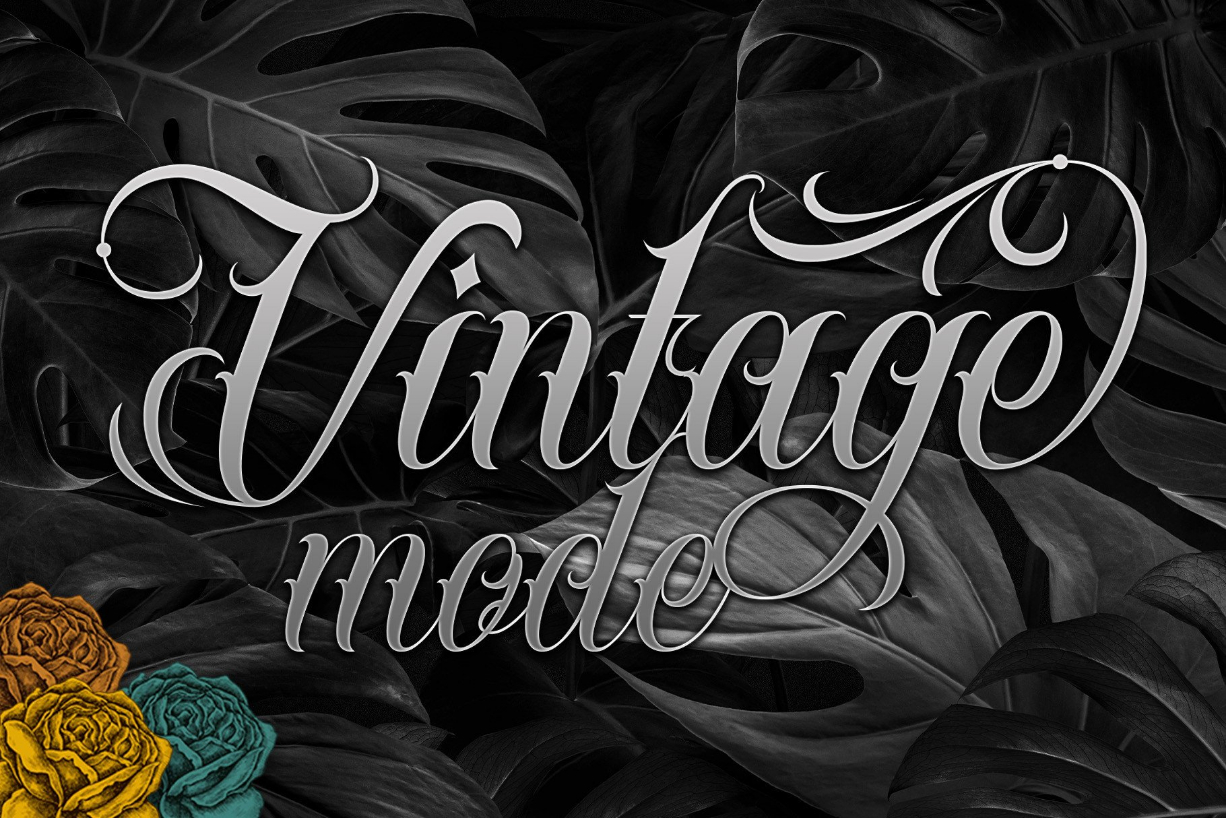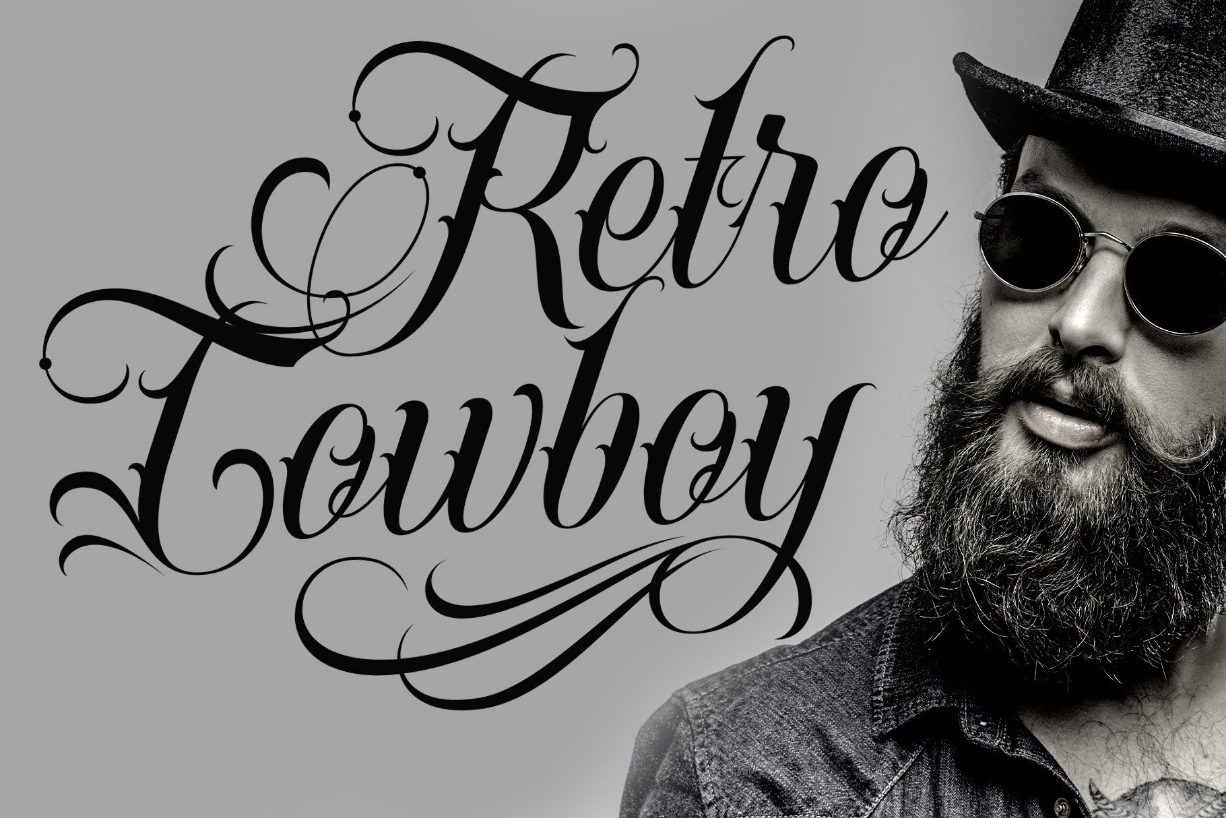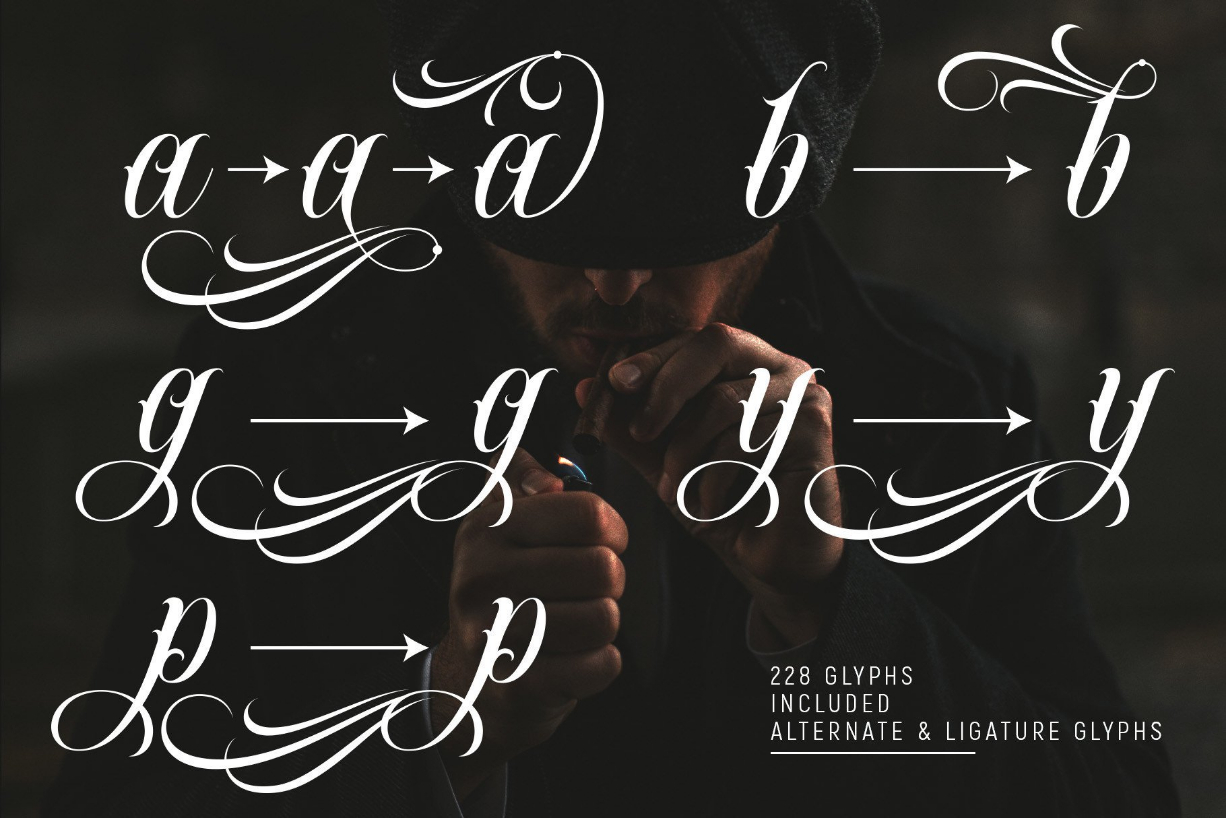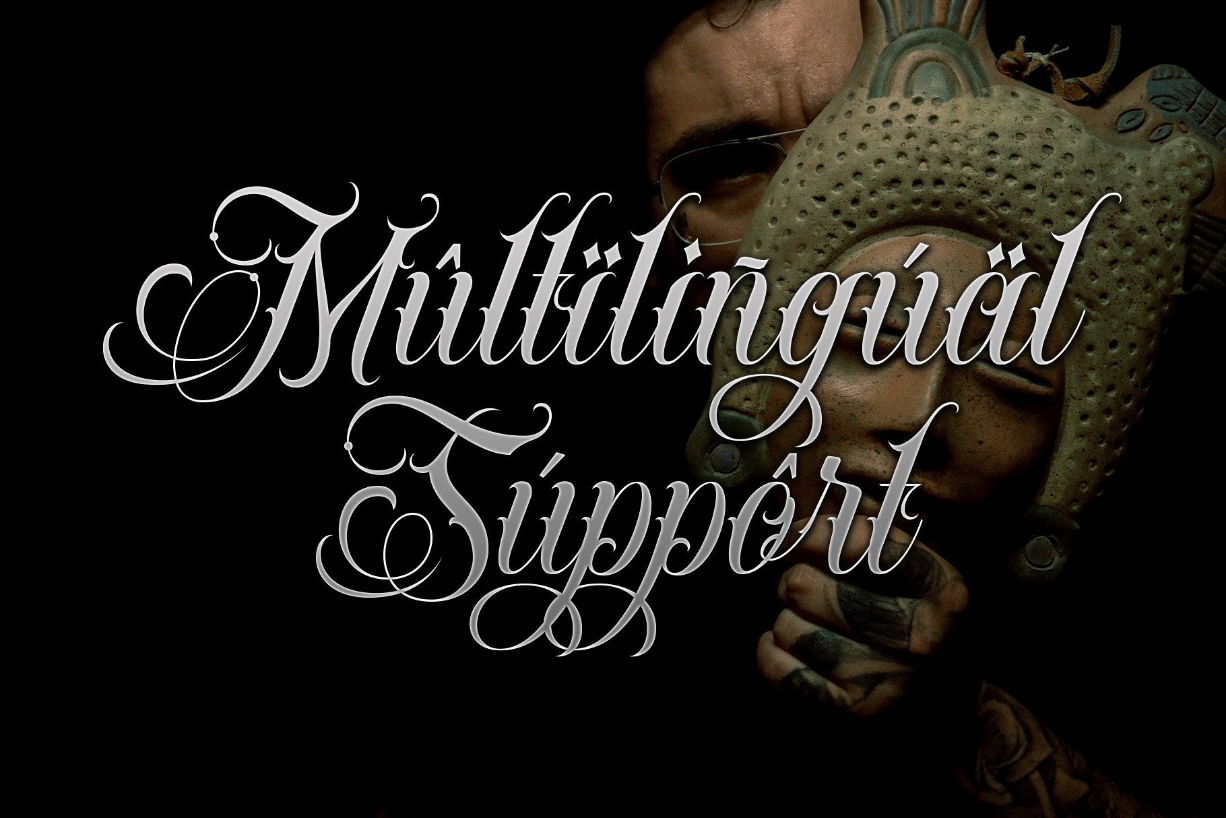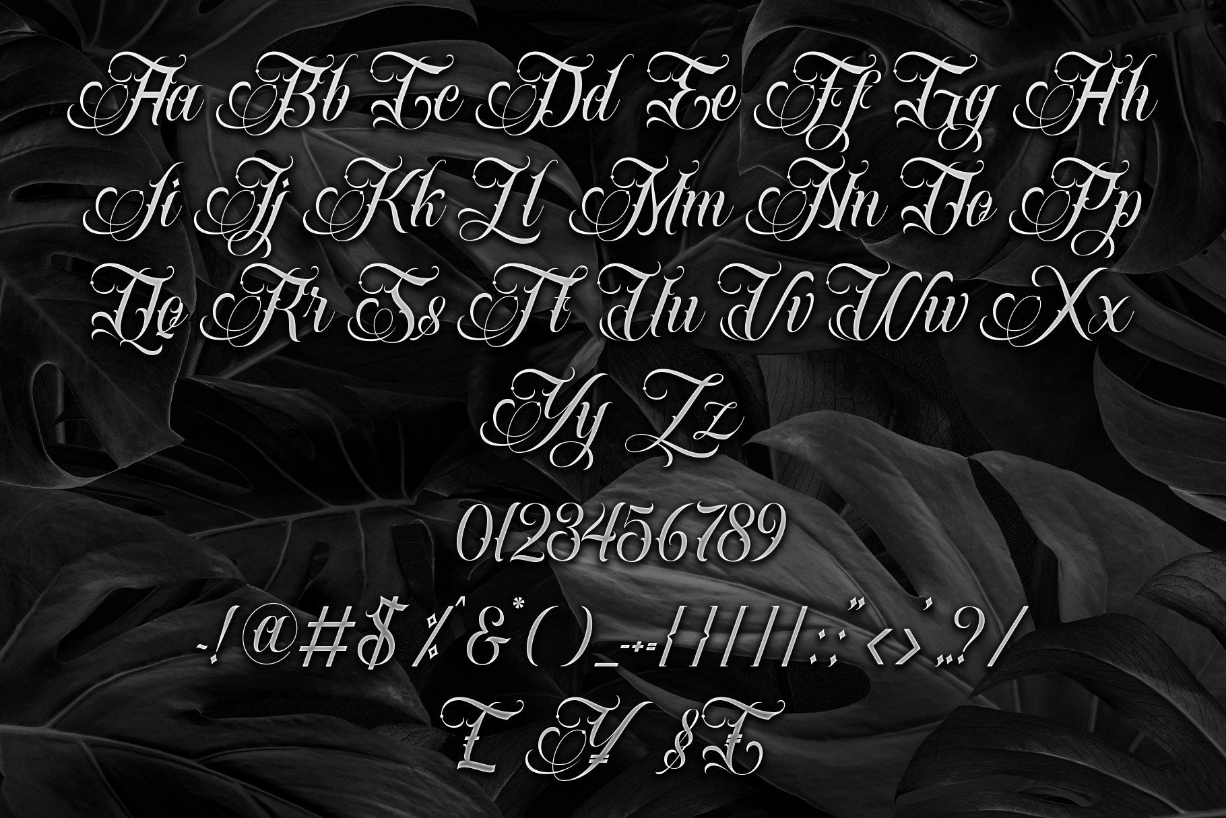
Bougenville Font
About Bougenville Font
Bougenville is a contemporary blackletter tattoo font that feels right at home on logos, t-shirt designs, posters, flyers, and other brand identity items. Add it confidently to your projects, and you will love the results.